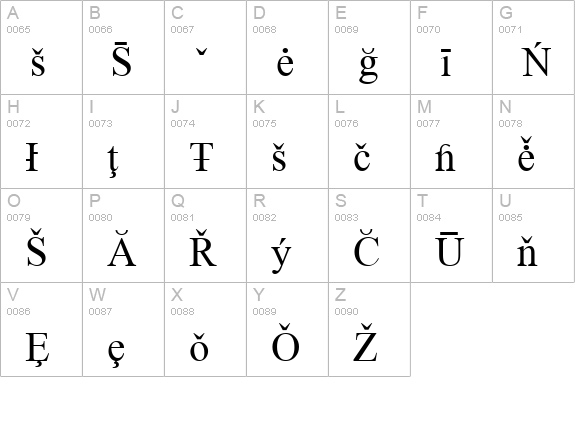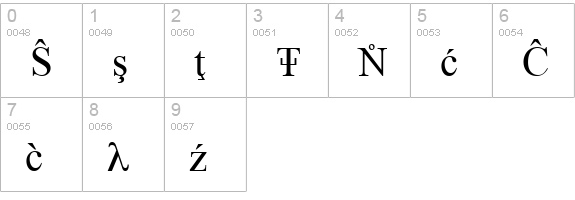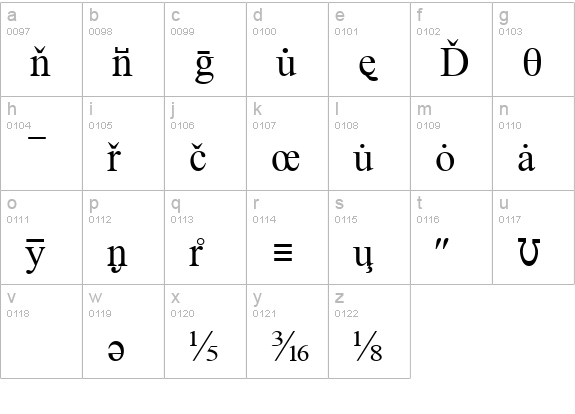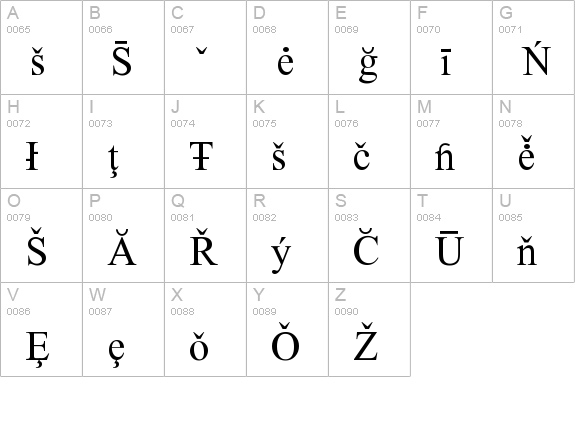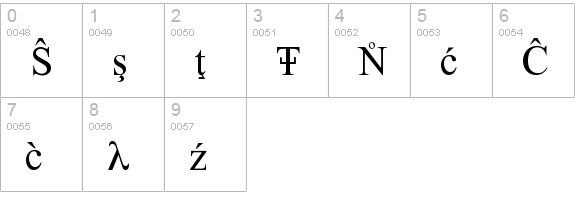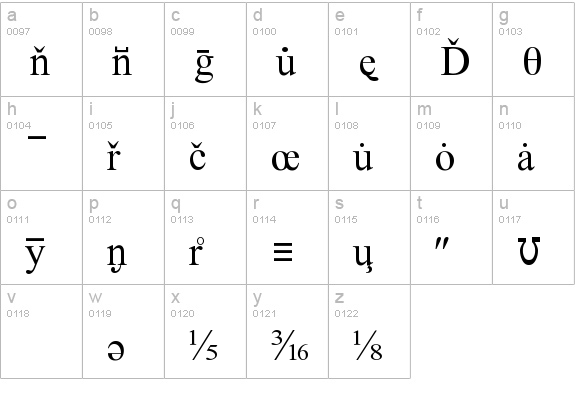
Info16 Font Details
Info16 is a versatile and stylish font that is perfect for any design project. With its clean lines and modern aesthetic, this font is sure to make a statement. Whether you are creating a logo, designing a website, or working on a print project, Info16 will add a touch of sophistication and professionalism. One of the best features of Info16 is that it is free to download. That's right, you can access this amazing font without spending a dime. It is available for free download exclusively at FontsMarket.com, the leading online marketplace for high-quality fonts. FontsMarket.com prides itself on offering a wide range of fonts, and Info16 is no exception. By choosing Info16, you are not only getting a beautiful and versatile font, but you are also saving money. With the free availability of this font, you can allocate your budget to other important aspects of your design project. Whether you are a professional designer or just starting out, Info16 is a must-have font in your collection. Not only is Info16 easy on the eyes, but it is also easy to use. The font is available in multiple formats, making it compatible with various design software and platforms. This means that you can seamlessly incorporate Info16 into your project without any hassle. Info16's clean and modern design makes it suitable for a wide range of applications. It is perfect for headlines, titles, body text, and even branding materials. The versatility of this font allows you to experiment and explore different design possibilities. So why wait? Download Info16 for free today at FontsMarket.com and elevate your design projects to the next level. With its sleek and professional look, this font is sure to impress your clients and make a lasting impact. Don't miss out on this amazing opportunity to enhance your designs with Info16. Get it now and let your creativity shine!